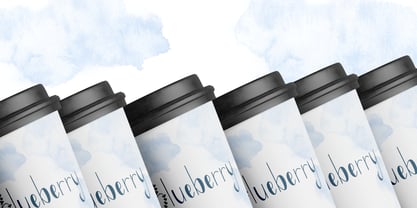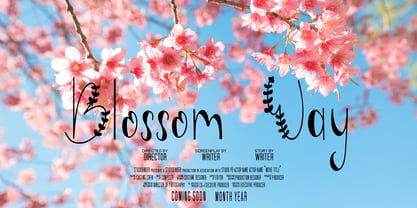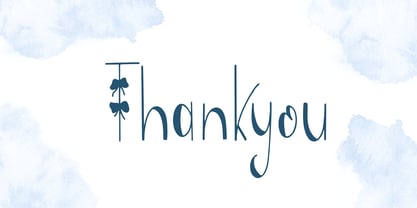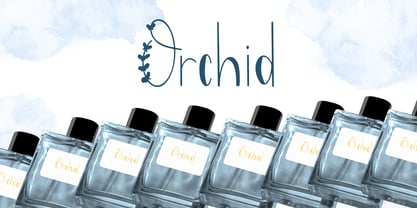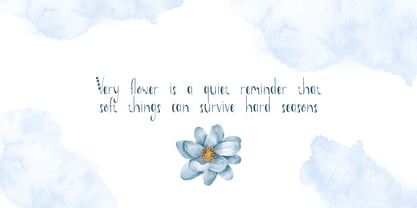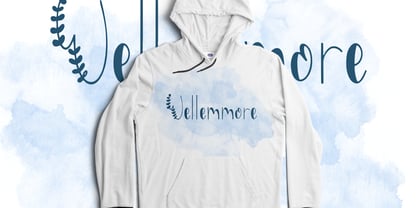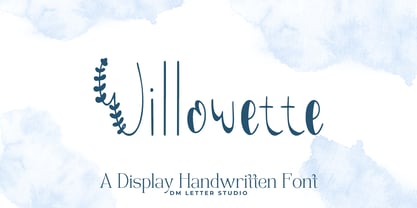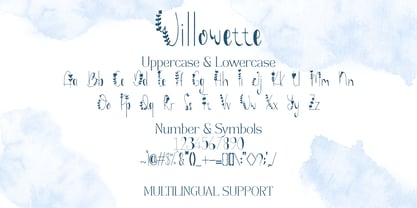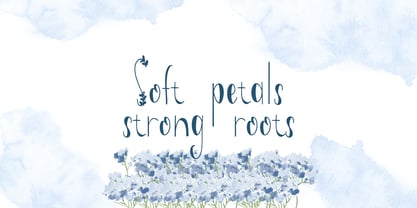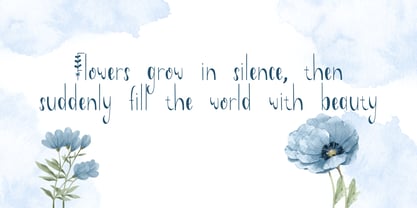
Willowette
von DM Studio
Die Schriftfamilie Willowette wurde von Dimas Prasetyo entworfen und von DM Studio veröffentlicht. Willowette enthält 1 Stile. Mehr über diese Familie
Meet Willowette Font brings soft, romantic charm to every title. Letters feel flowing and graceful, with gentle curves that stay clear at any size. Because the strokes are balanced, your words read fast on invitations, logos, packaging, stickers, and thumbnails. Use it for weddings, boutiques, beauty brands, and lifestyle posts. Moreover, Willowette pairs beautifully with modern serifs and clean sans fonts, so layouts stay elegant without effort. Where Willowette Font shines Set short phrases like “Save the Date,” a couple’s names, or a boutique logo. Then add fine lines, subtle shadows, or a light foil texture for depth. Since spacing is tuned for headlines, mockups come together in minutes. As a result, you can launch full suites for stationery, gift tags, menus, and social graphics with less editing. Plus, smooth curves keep vinyl cuts and foil stamps crisp. Fast setup, polished results Install the files and start designing right away in Canva, Photoshop, and Illustrator. Also, the outlines remain clean for letterpress, emboss, deboss, and engraving. Consequently, cards, boxes, and acrylic signs deliver a consistent premium look. Next, try color stories like champagne and charcoal, blush and cocoa, or sage and ivory to match season and mood. Finally, save a base template—headline, subhead, and accent line—so new SKUs roll out quickly. Design tips for Willowette Font Keep copy short and let the letterforms breathe. Pair Willowette headlines with a quiet serif for body text and prices. Meanwhile, add micro-tracking on all caps, or tighten pairs on names for a luxe feel. Because the script is smooth, textured paper, wax seals, and metallic details raise perceived value. However, avoid long sentences on tiny labels. Names, dates, and concise phrases hit hardest. What you get inside Uppercase, lowercase, numbers, punctuation Selected stylistic alternates and swashes (key letters) Multilingual Latin support Curves tuned for foil, letterpress, engraving, and clean vinyl cutting Why creators choose Willowette You want romance with professional clarity. Willowette Font delivers both. It grabs attention in crowded feeds, speeds production, and scales from mini tags to signage without losing grace.
Designer: Dimas Prasetyo
Aktuelle Foundry: DM Studio